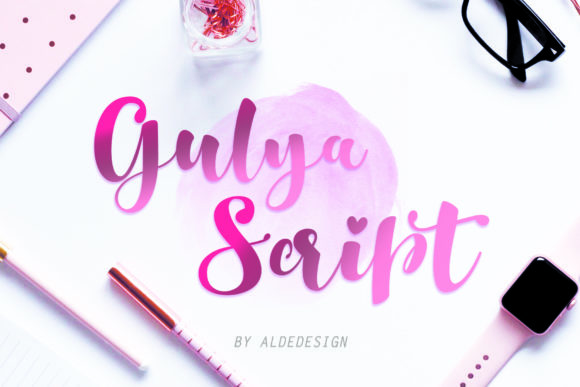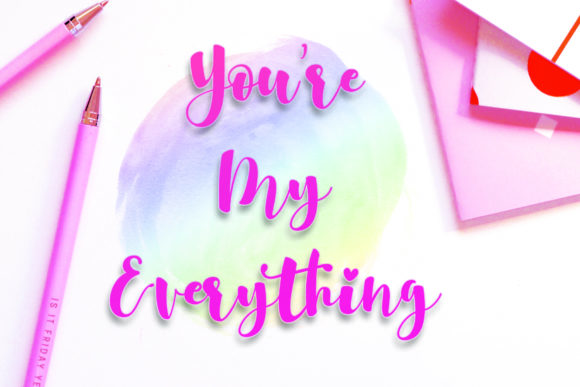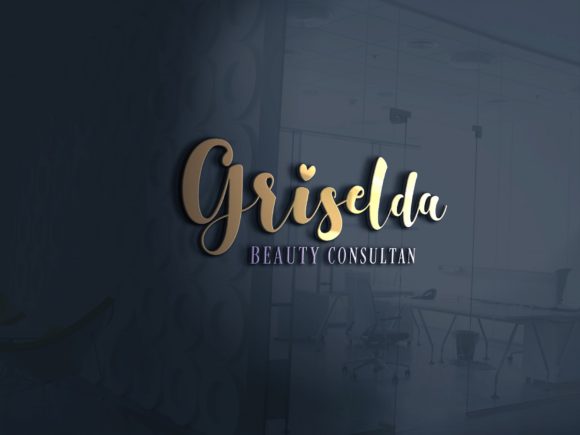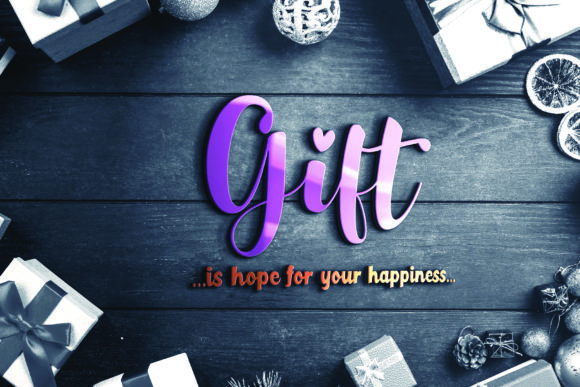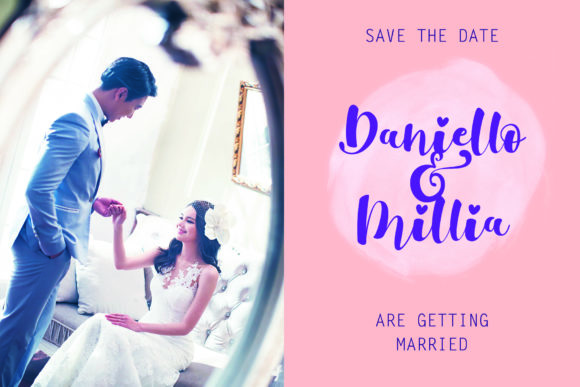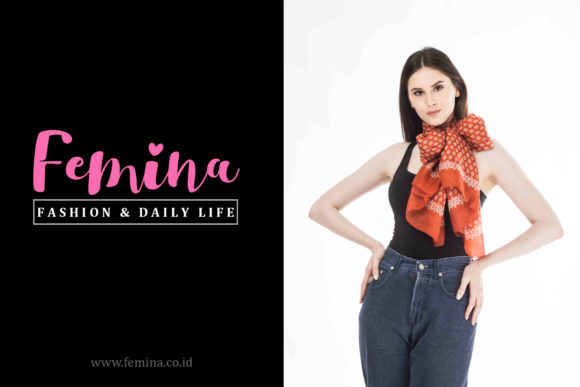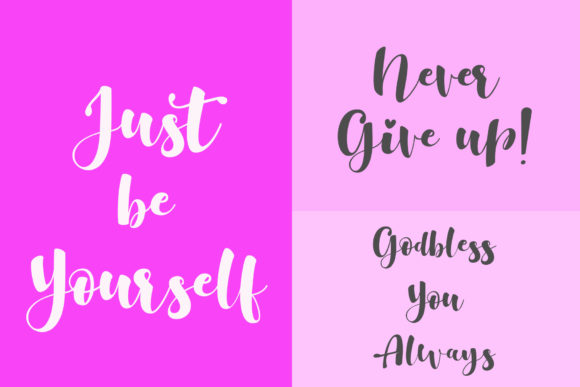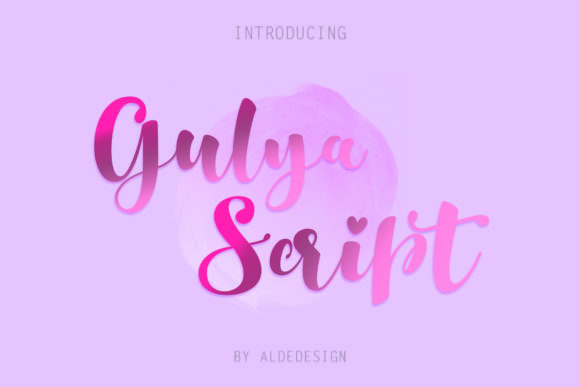
Gulya Script Font
About Gulya Script Font
The Gulya is a beautiful script font. It gives a feminine vibe while keeping a striking look. It’s cute and distinctive for logos, weddings, branding, and much more!